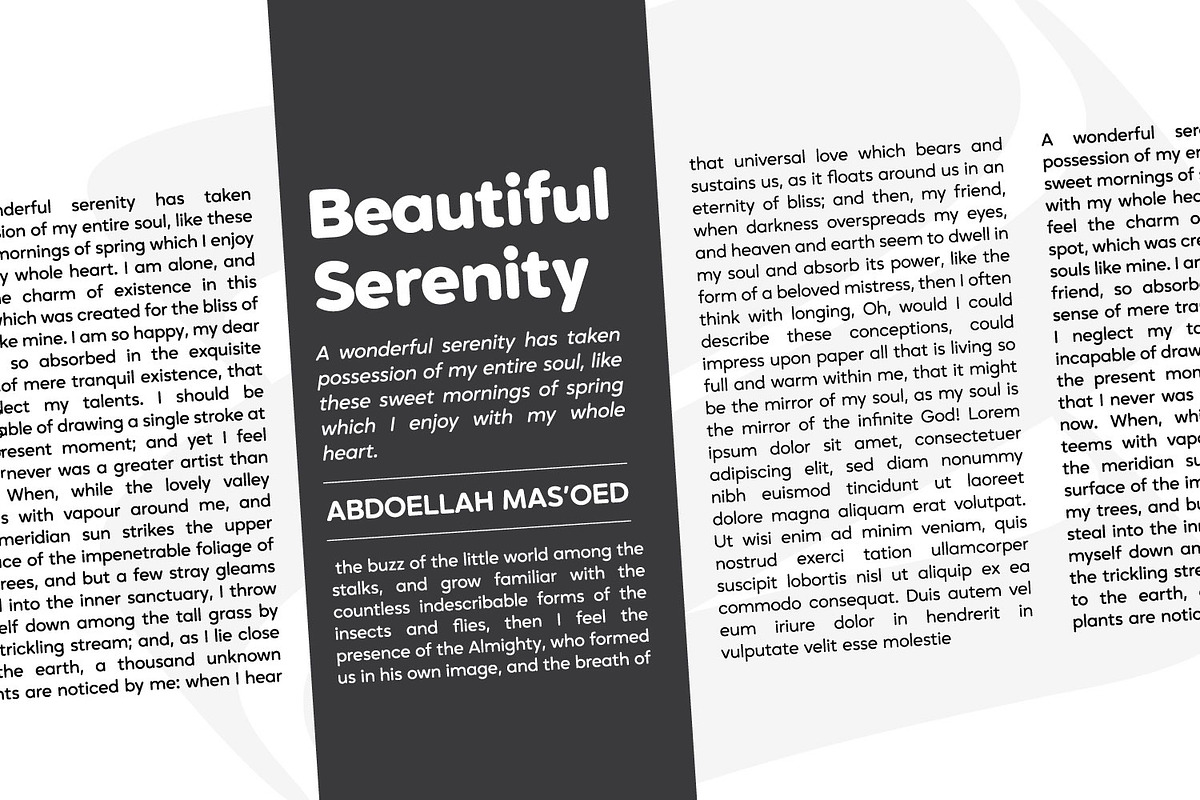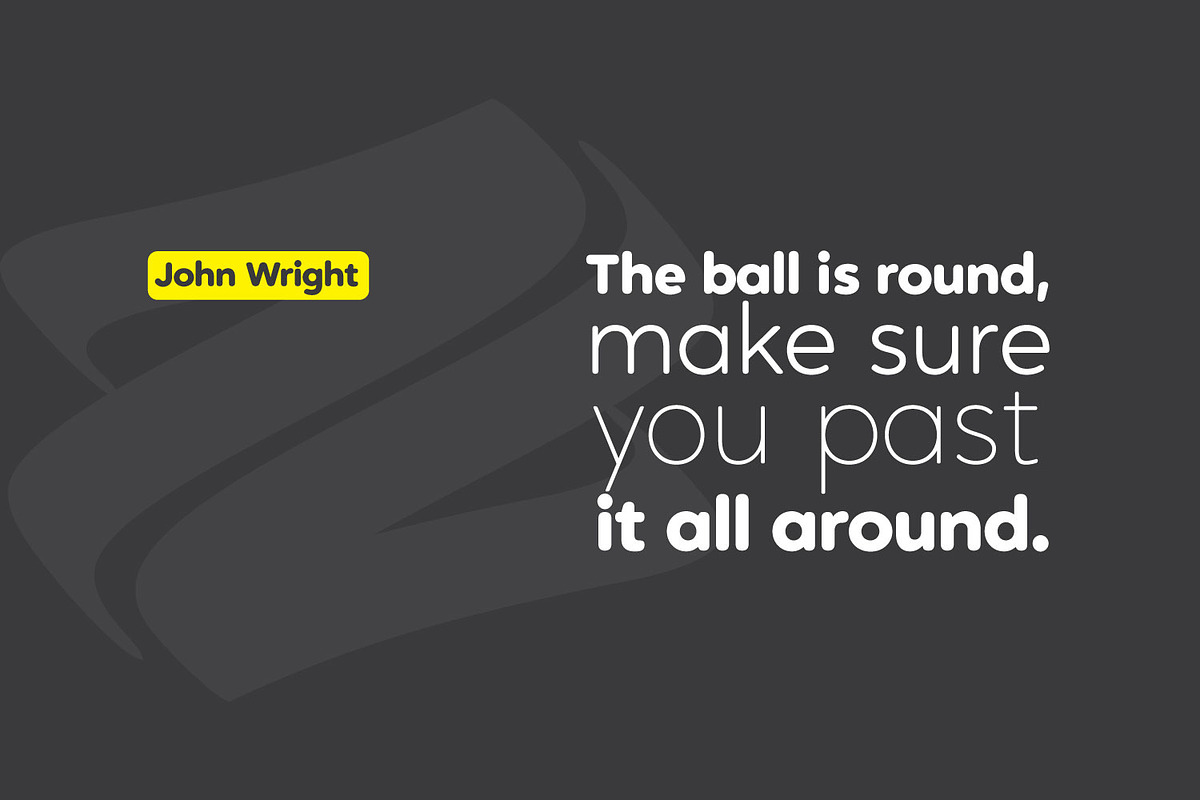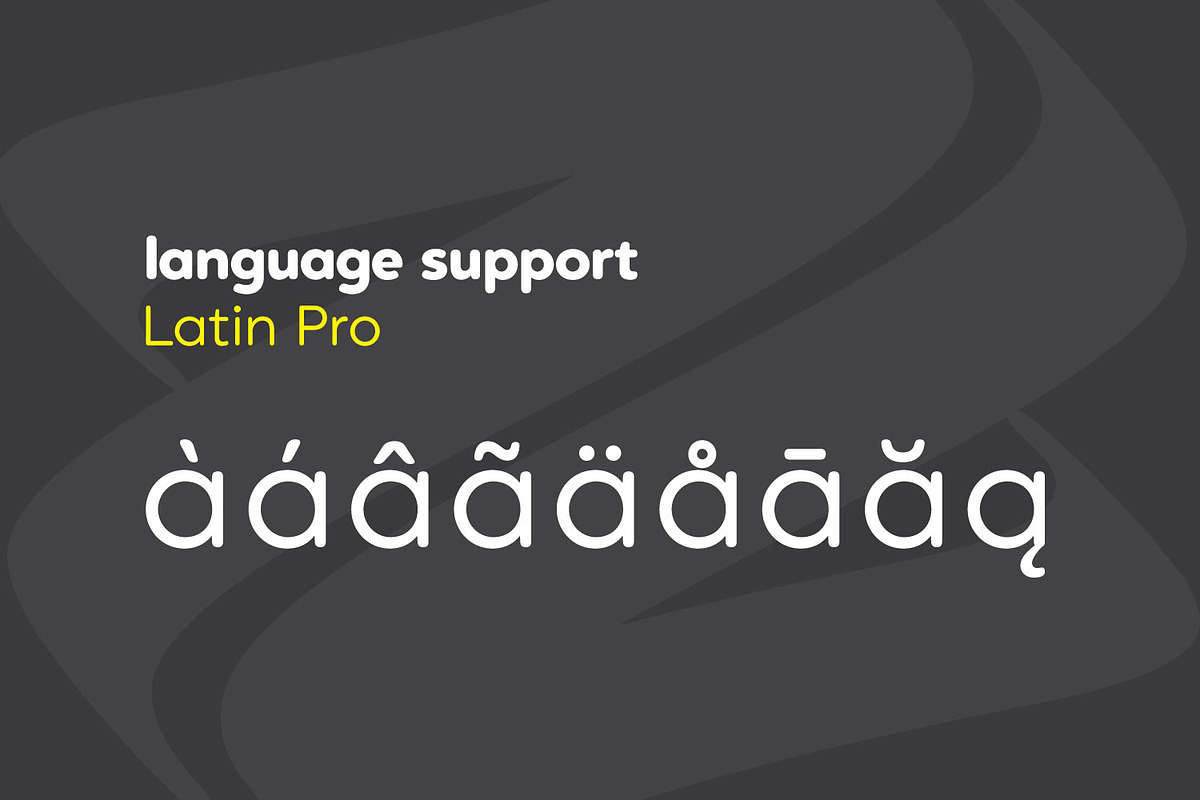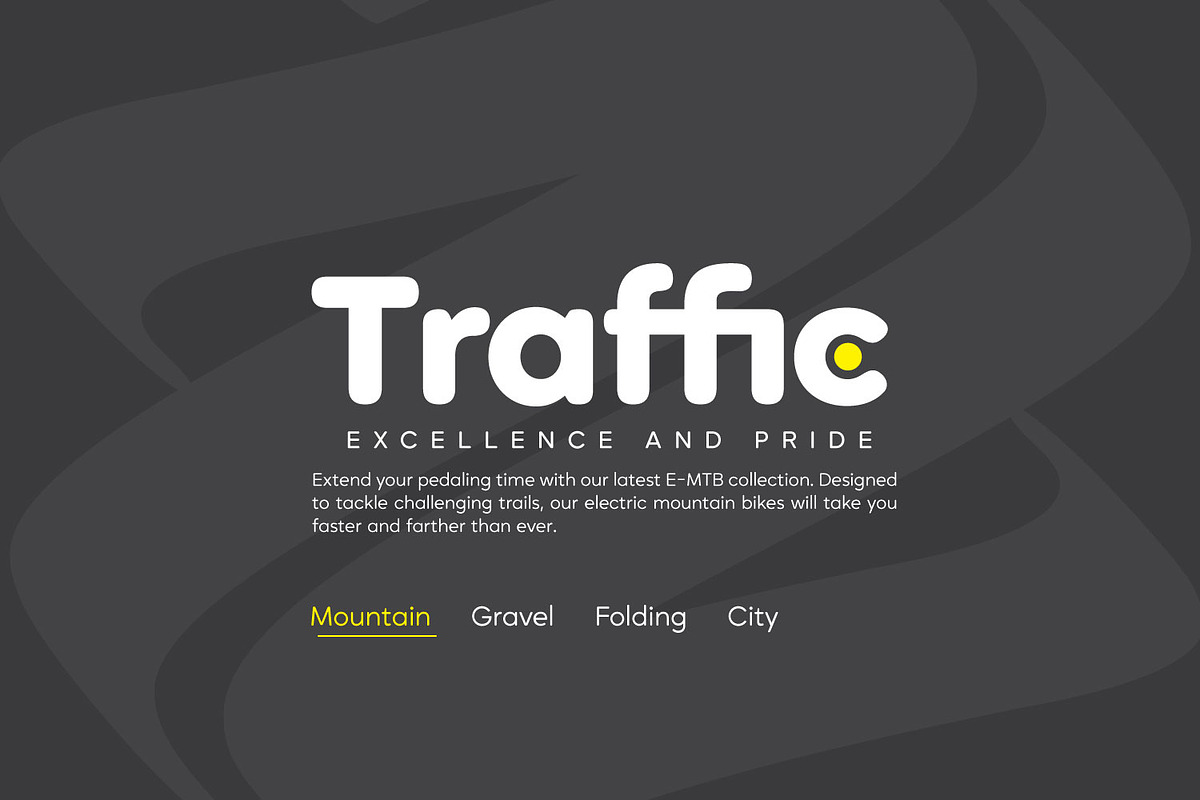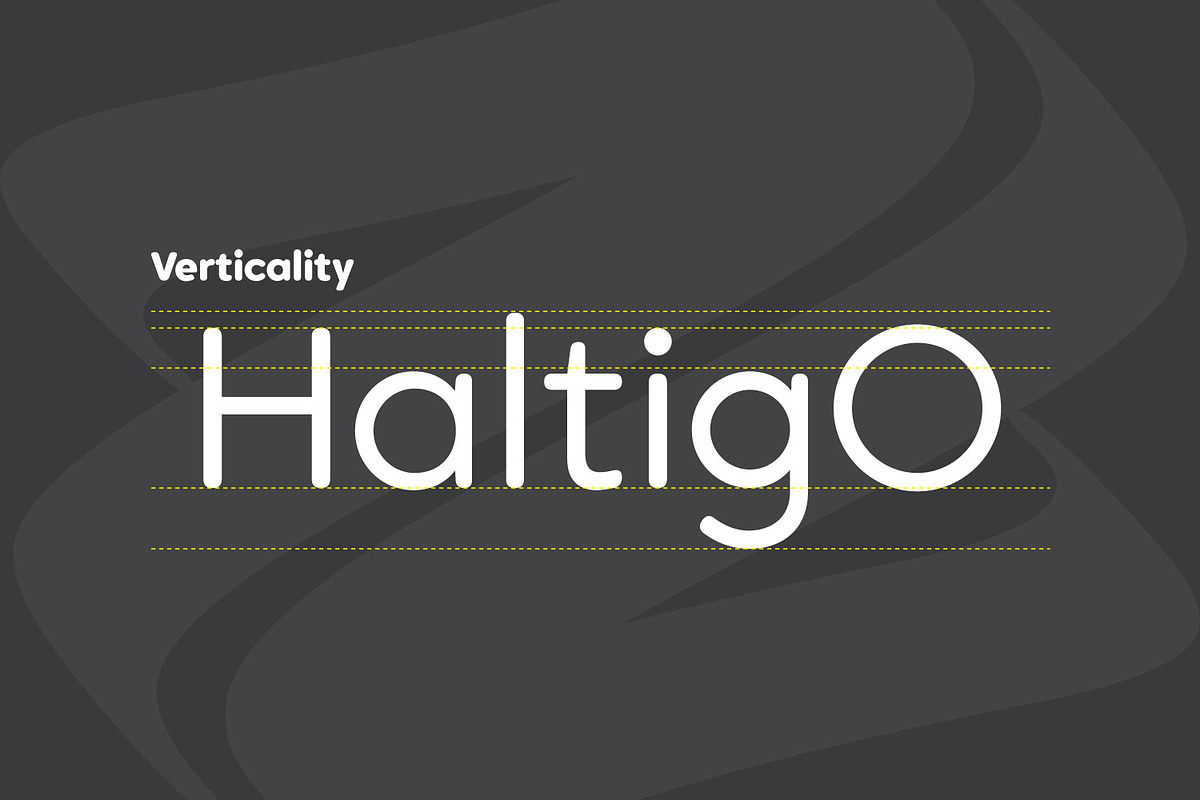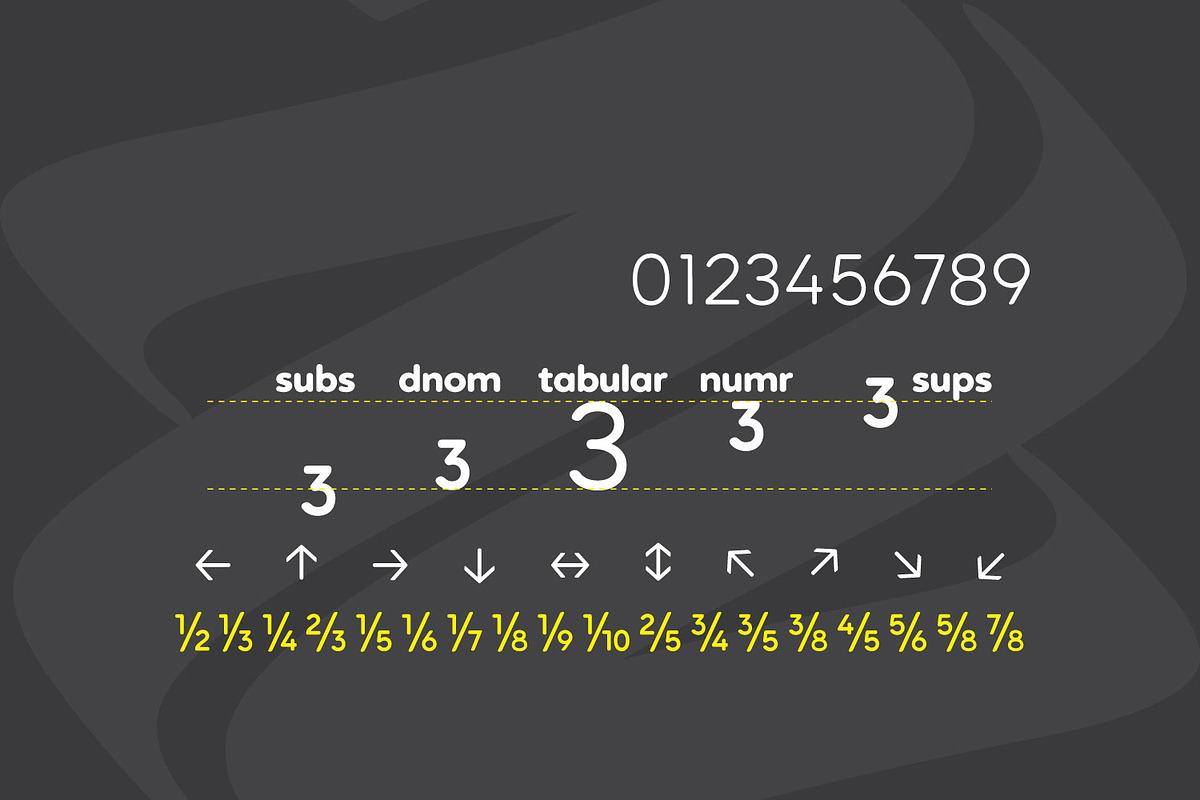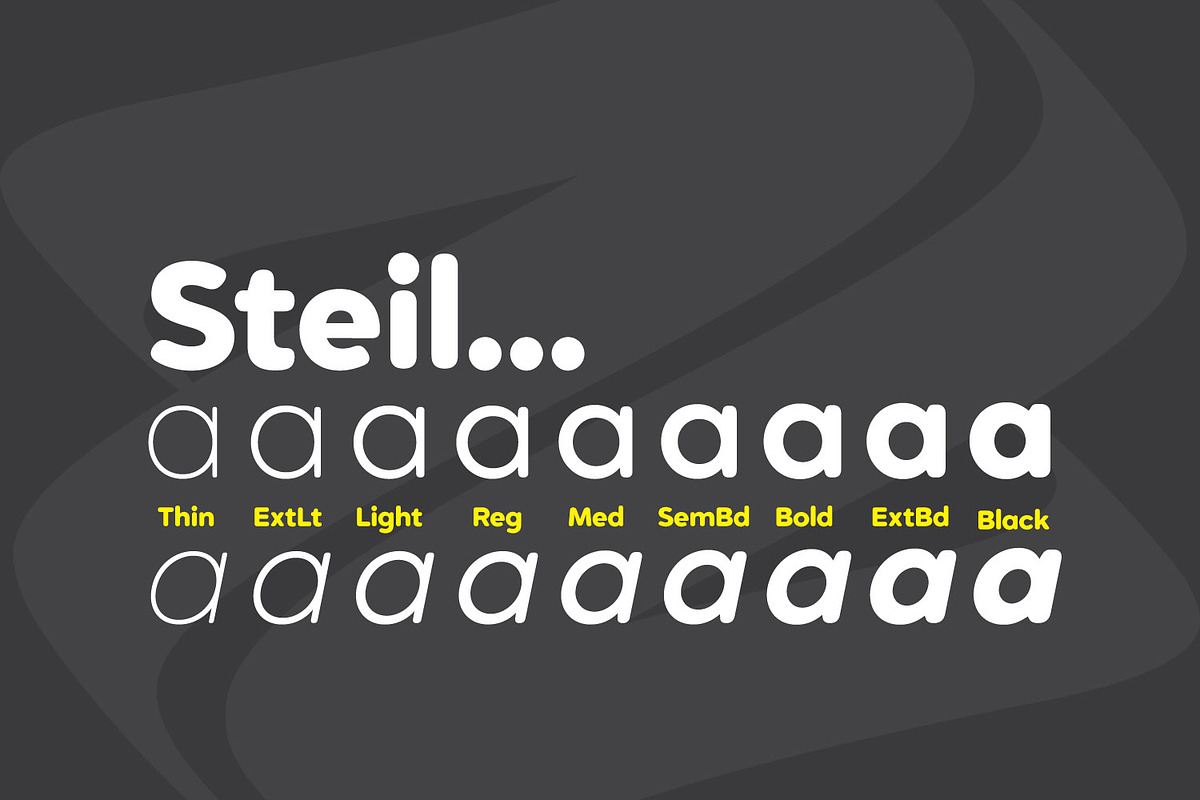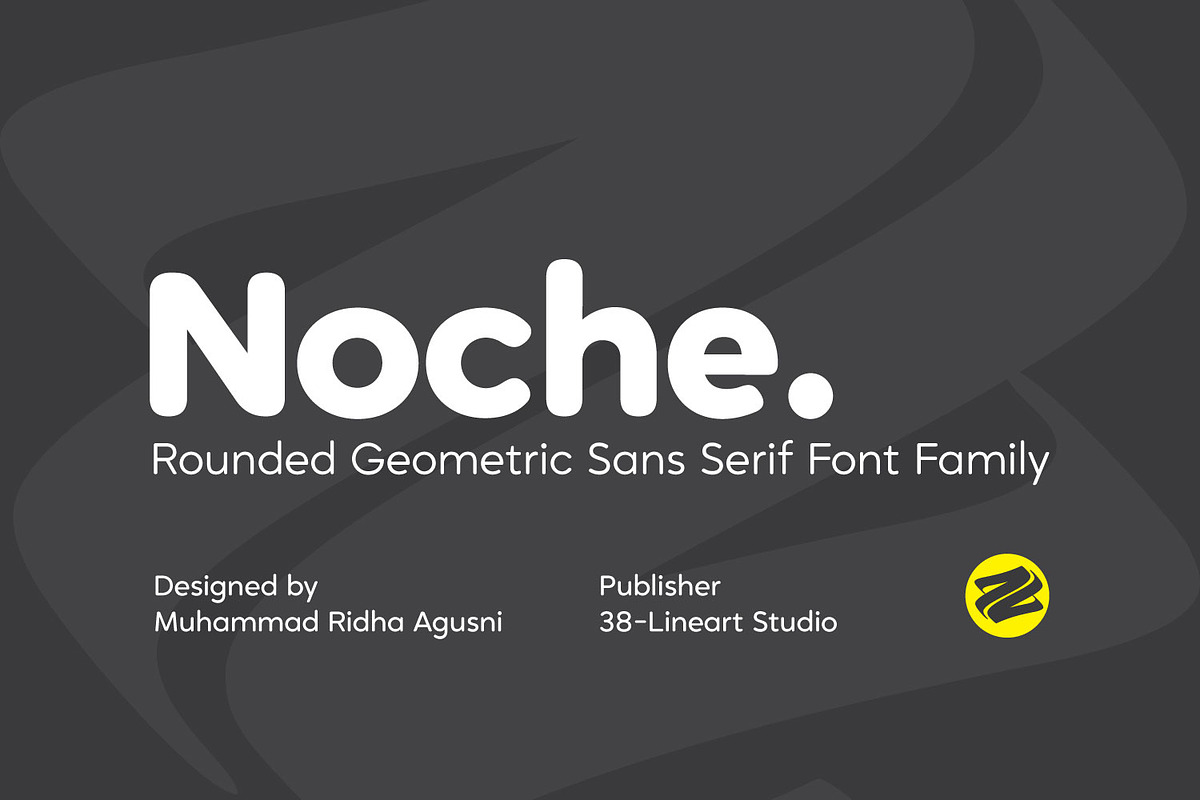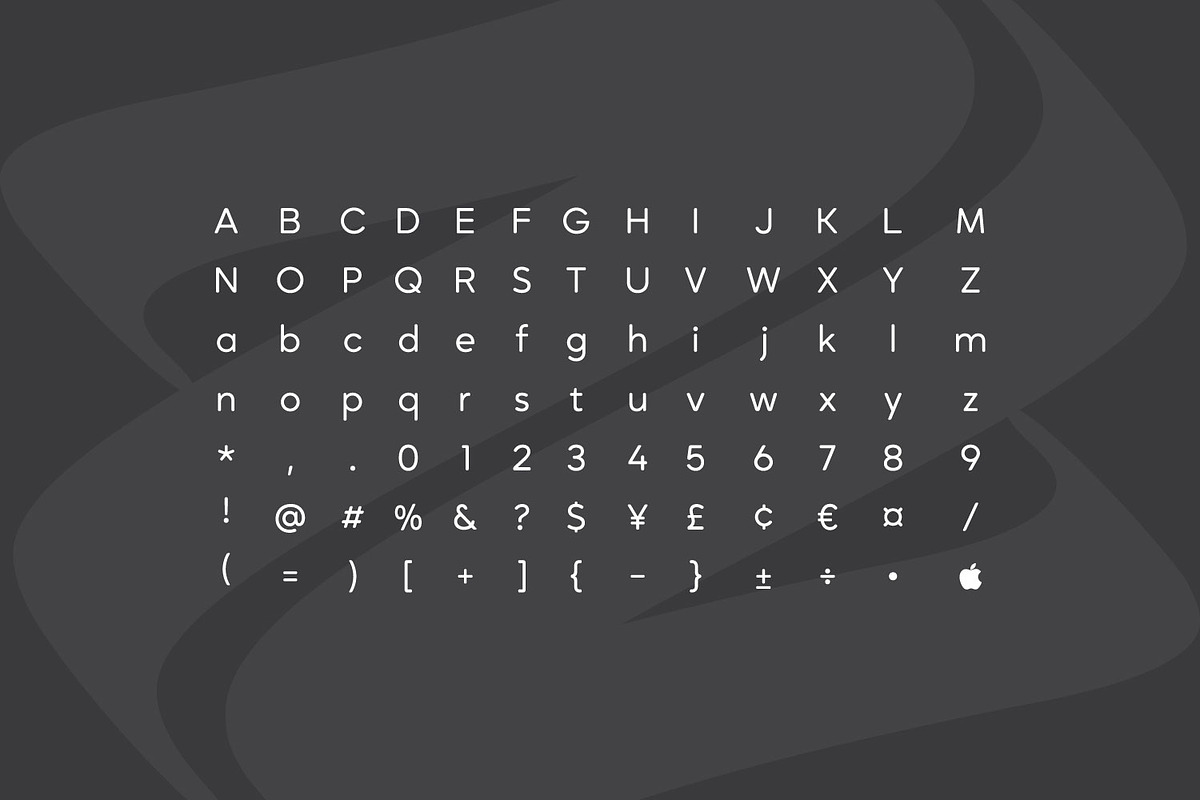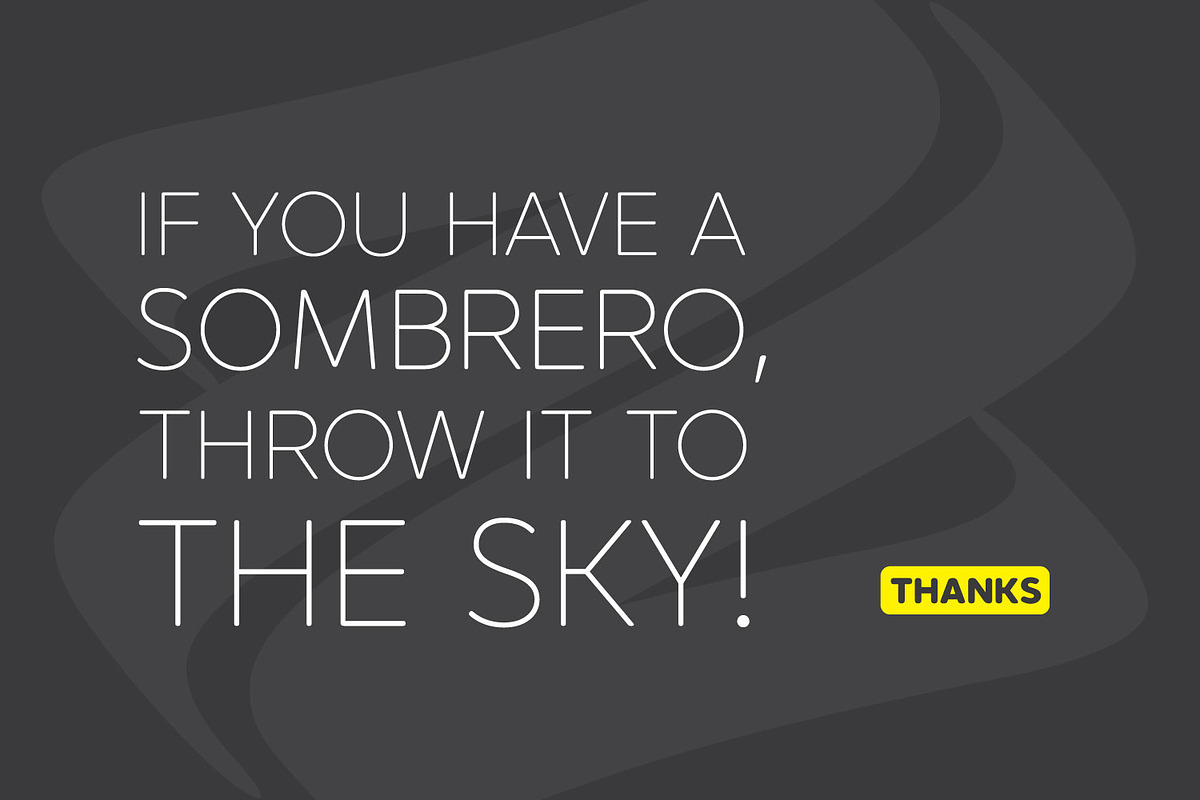
Noche
Noche is a modern, geometric, and rounded sans serif font family. Its clean lines and smooth curves make it perfect for various design projects, from digital to print. Noche supports a wide range of languages, including Western, Central, and Eastern European languages, ensuring global usability. With 18 styles across 9 different weights, Noche offers flexibility for any design need, from light and delicate to bold and strong.